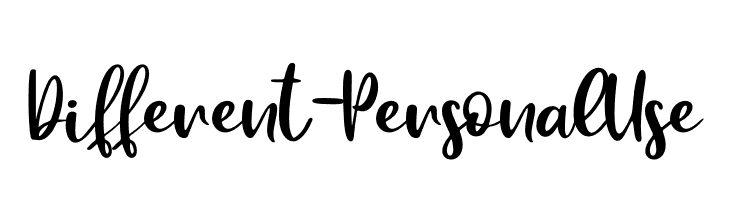
A bold, geometric font with a modern and dynamic style.
A decorative font with dotted outlines and playful, whimsical characters.
A bold, italicized font with moderate contrast and a modern yet classic style.
A bold serif font with strong, thick strokes and slightly condensed letterforms.
A bold, oblique font with a dynamic and impactful style.
A bold, expressive handwritten font with fluid strokes and a playful style.
Decorative icon-based font with playful, outlined numerals.
A bold, geometric font with a modern and clean style.
Hand-drawn shoe illustrations as font glyphs.
A playful, cartoonish decorative font made of illustrated faces and characters.
A modern, bold, and slightly italic font with rounded characters.
A bold, modern sans-serif font with a clean and uniform appearance.
A bold, italic font with a modern and dynamic style.
A sleek, modern light italic font with smooth, dynamic strokes.
A bold, ultra-black sans-serif font perfect for impactful headlines.
A mechanical, condensed, and oblique font with a modern and dynamic style.
A modern, oblique font with a mechanical style and consistent stroke width.
A robust, mechanical font with extended letterforms and subtle serifs.
A clean, modern semi-bold typeface with balanced proportions and smooth curves.
A bold, modern sans-serif font with clean lines and excellent readability.
Bold, narrow, and oblique font with high contrast and tight spacing.
A modern, oblique font with bold, consistent strokes and excellent readability.
A bold, narrow, and modern typeface with consistent stroke width.
A geometric, angular font with bold lines and a modern, futuristic style.
A bold, dynamic handwritten font with expressive strokes.